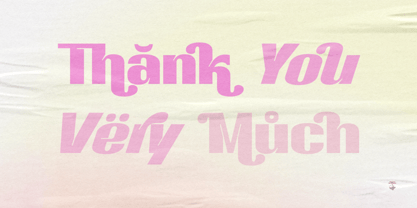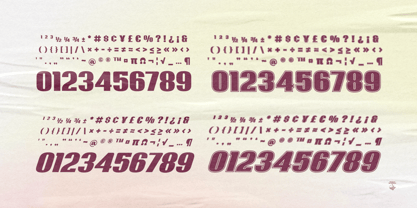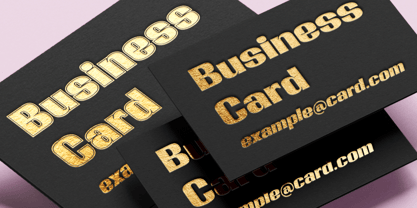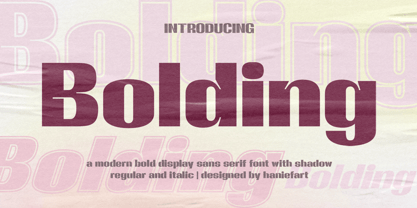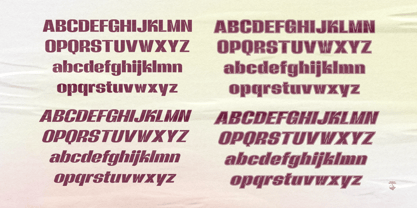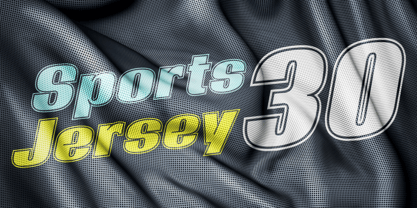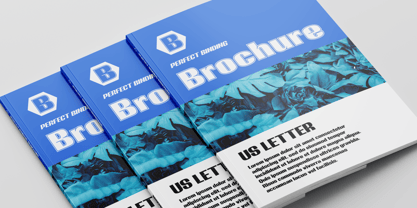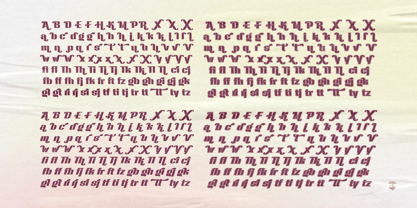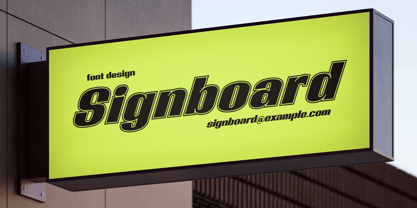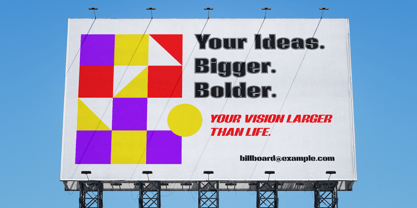
Bolding
by Haniefart
The Bolding Font Family was designed by Hanif Maulazi and published by Haniefart. Bolding contains 4 styles and family package options. More about this family
Bolding is an innovative bold sans serif display font specifically designed to grab attention. Transforming your headlines into stunning visual masterpieces, this font offers the perfect balance between elegant modern aesthetics and strong character. With its sharp geometric anatomy, Bolding ensures every letter has exceptional readability while lending a high-end professional feel to every design project.
It features four versatile styles: Regular, Italic, Regular Shadow, and Italic Shadow for unlimited design flexibility. It features unique stylistic alternates and innovative ligatures for dynamic layouts. The design's sharp, precise geometric legibility ensures your message is immediately focused and doesn't go unnoticed. It offers multilingual support and extensive global compatibility, including a wide range of diacritical marks and accented characters. This font is perfect for visual identities, from dynamic logo designs, corporate branding, premium business cards, signage, billboards, event posters, magazine covers, exclusive brochures, athletic jerseys, community t-shirts, and modern apparel products, to high-end product packaging. Unleash your artistic soul and turn your visual aspirations into reality with Bolding, your trusted partner for iconic and distinctive typography solutions.
Designers: Hanif Maulazi
Foundry: Haniefart